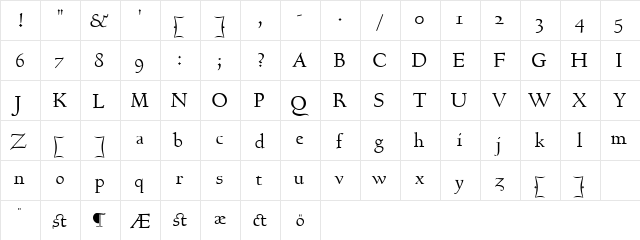
Goudy Hundred Regular Font Preview
Goudy Hundred Regular
Design Context for Goudy Hundred Typeface
Goudy Hundred takes a measured approach to typography — its balanced proportions and neutral character make it a reliable workhorse for both digital and print work.